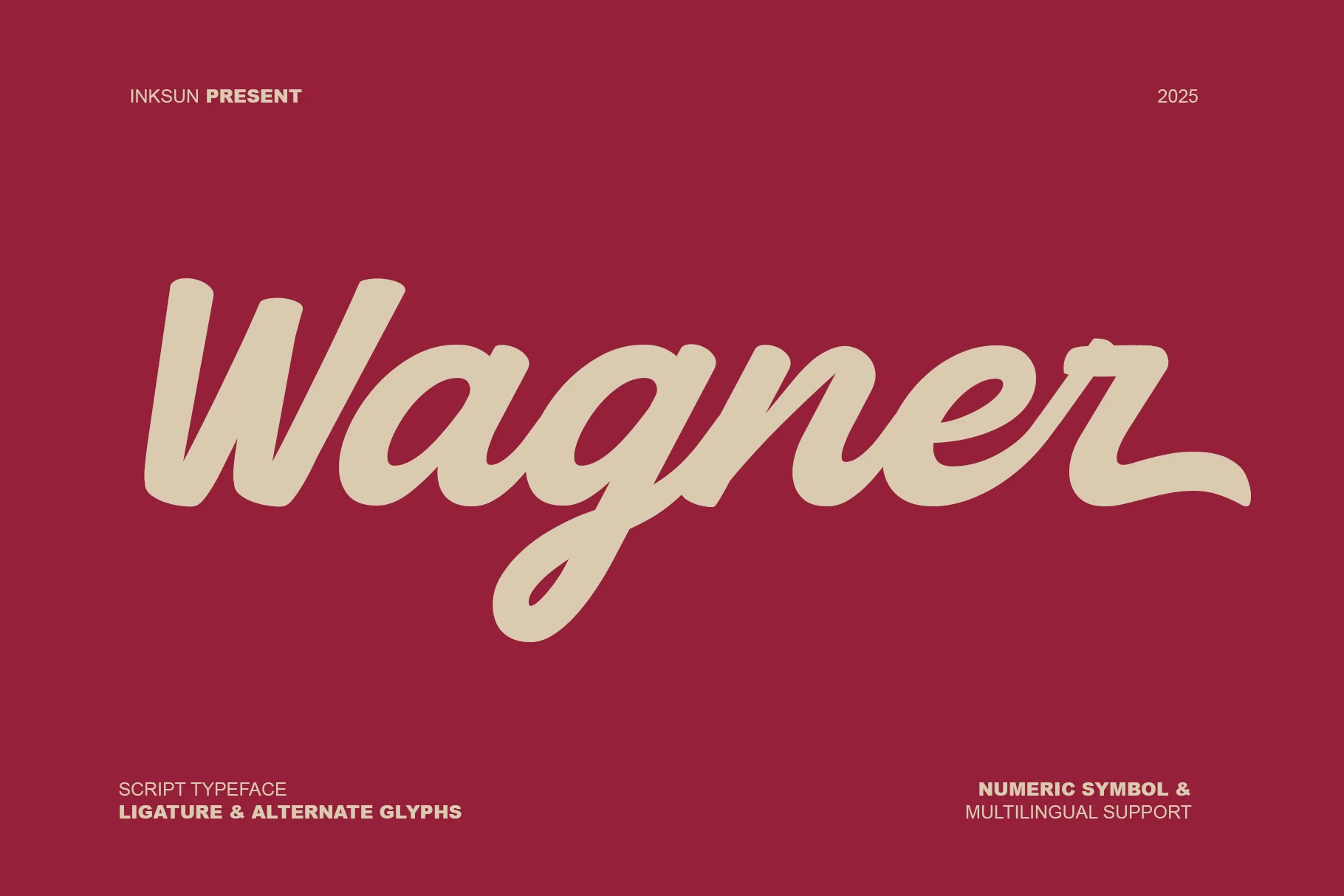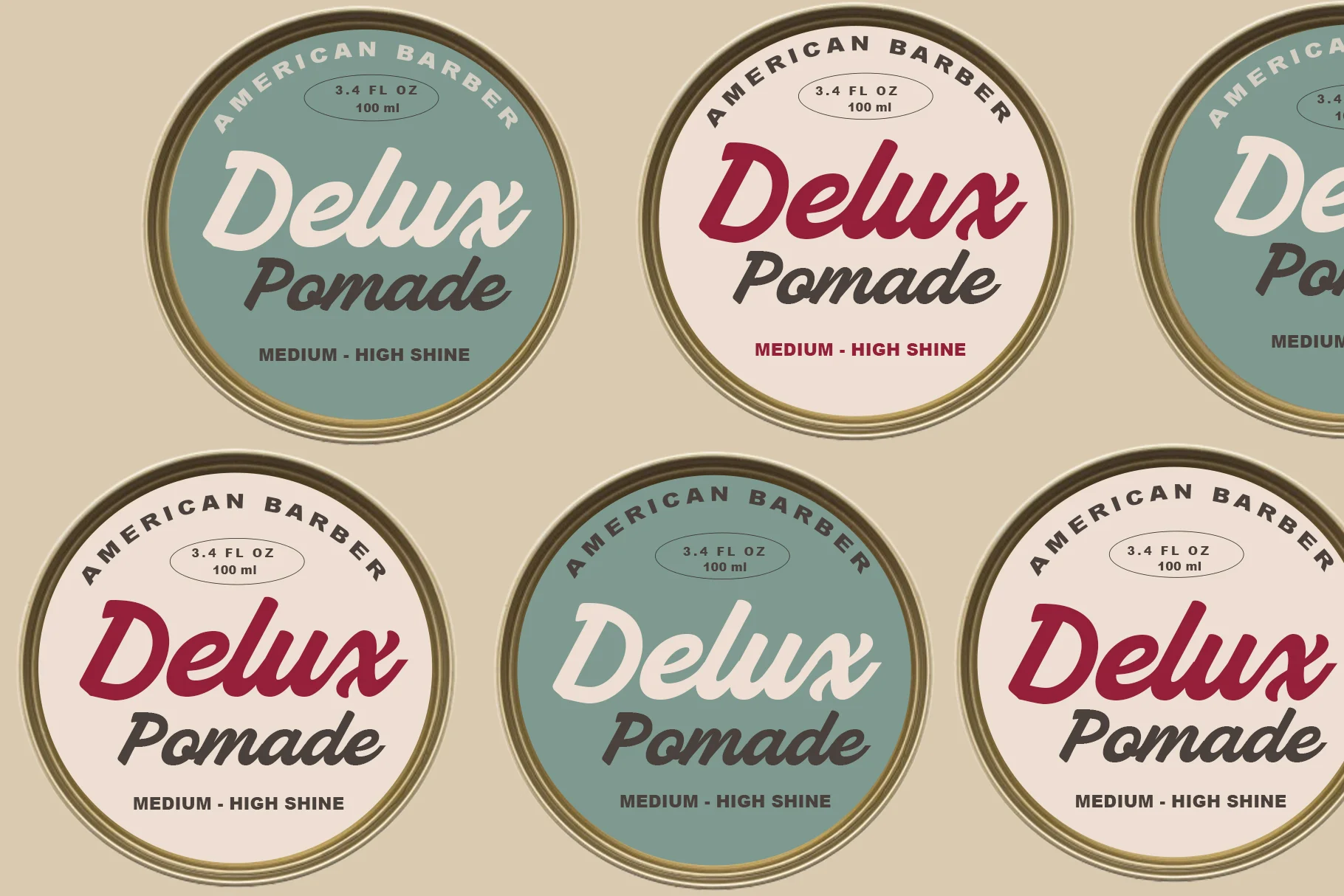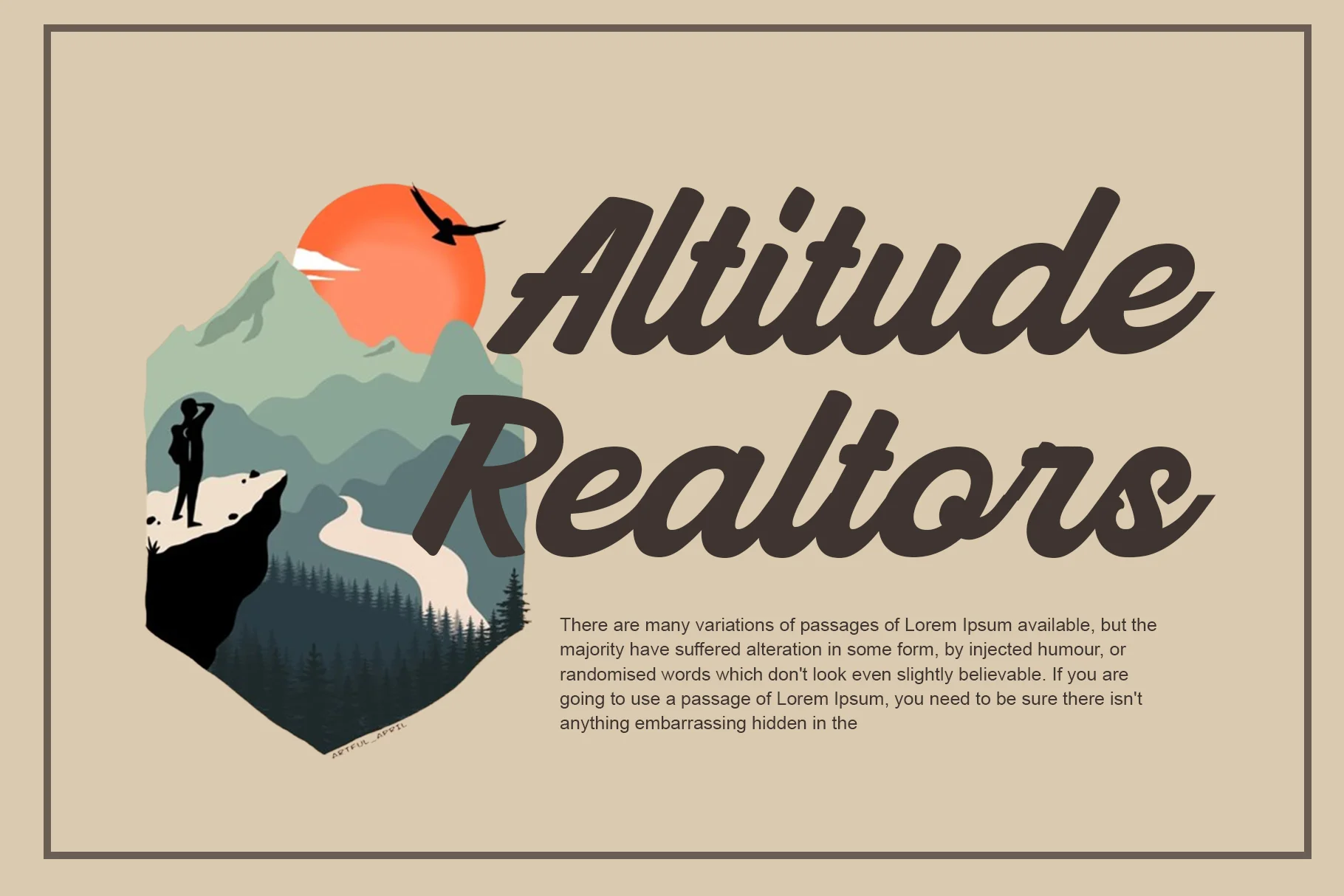
Wagner
The "Wagner" typeface projects a feeling of classicism, elegance, and vintage flair, with a strong focus on flowing readability.This is a Script Typeface that is bold and has a brush-style appearance, but with smooth, refined edges.The font features thick, bold strokes that flow seamlessly from one letter to the next, creating an elegant visual continuity.supports LIGATURE & ALTERNATE GLYPHS, meaning the font provides visual variations and more natural, authentic letter connections.Ideal for branding luxury products, labels for alcoholic beverages (wine, whiskey), classic café or restaurant designs, authentic logos, and headers that require an authoritative, bold, and nostalgic look.